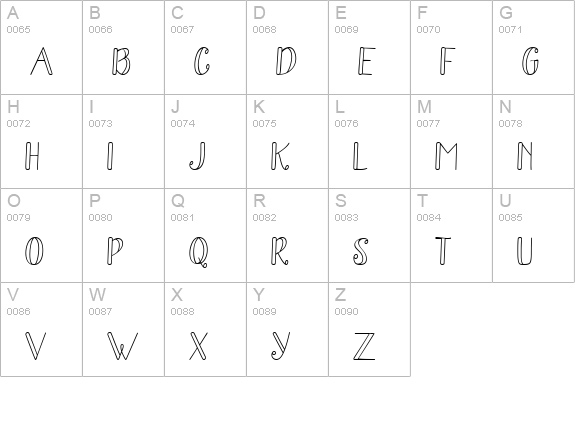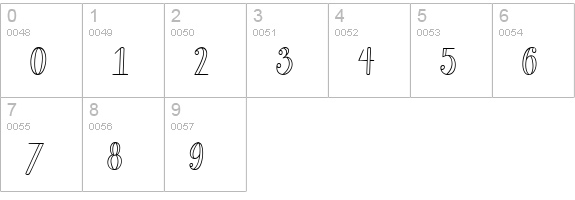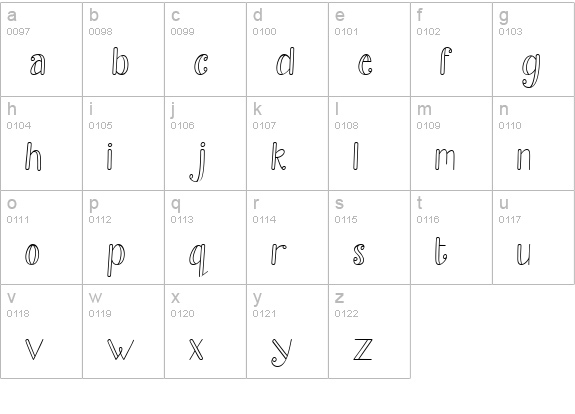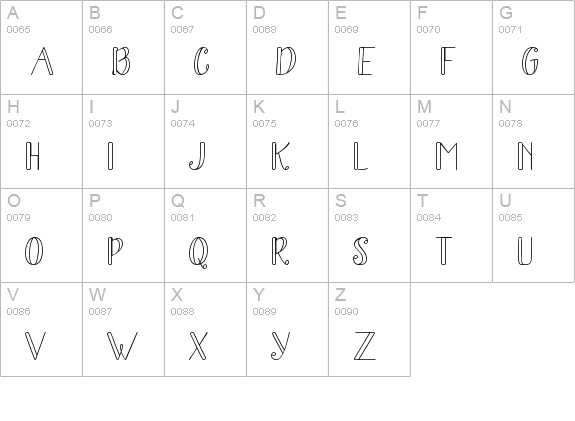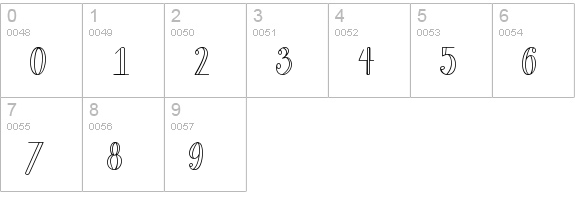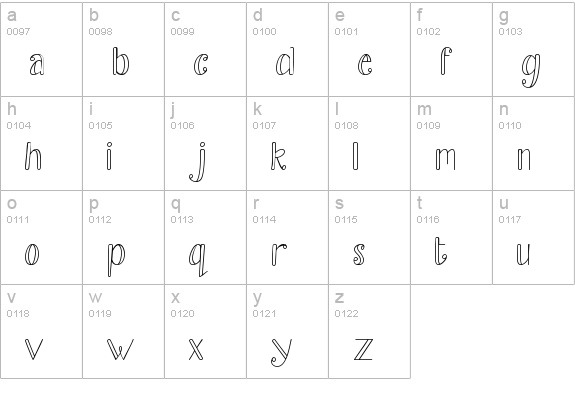
CK Simplicity Font Details
Introducing CK Simplicity font, the epitome of elegance and minimalism. This sleek and modern typeface exudes a sense of effortless style, making it perfect for a wide range of design projects. With its clean lines and sophisticated look, CK Simplicity font adds a touch of sophistication to any text. Best of all, CK Simplicity font is completely free to download at FontsMarket.com. Whether you're working on a branding project, a website design, or any other creative endeavor, this font is sure to elevate your work to the next level. Don't miss out on the opportunity to enhance your designs with the timeless beauty of CK Simplicity font. Download it now and let your creativity shine!